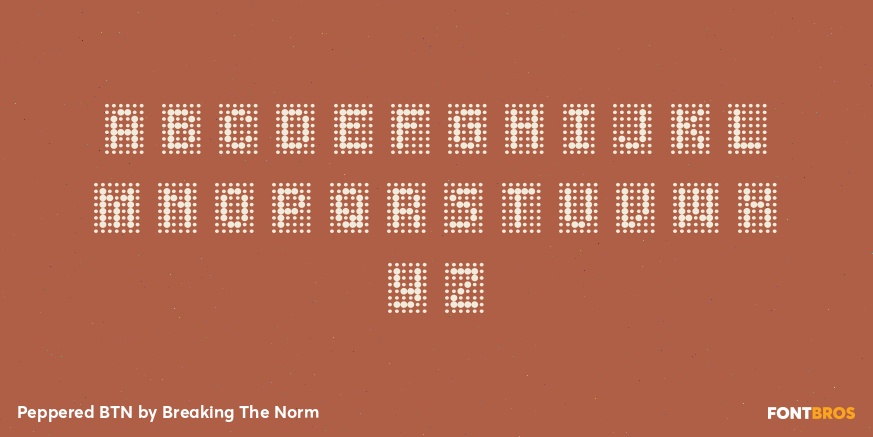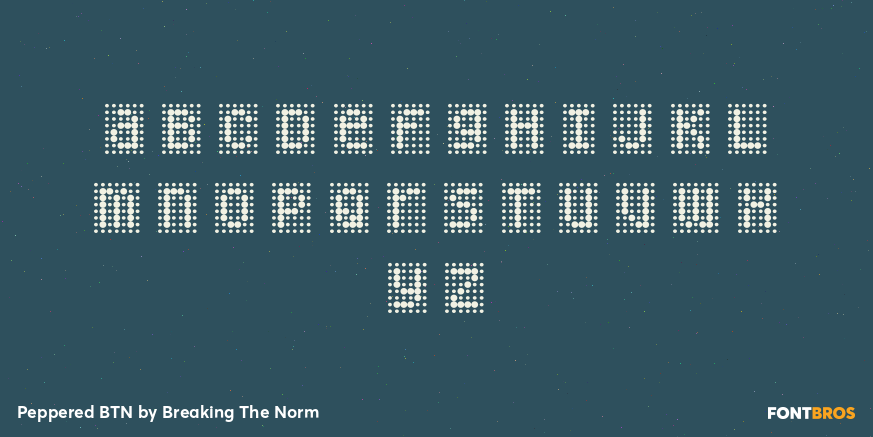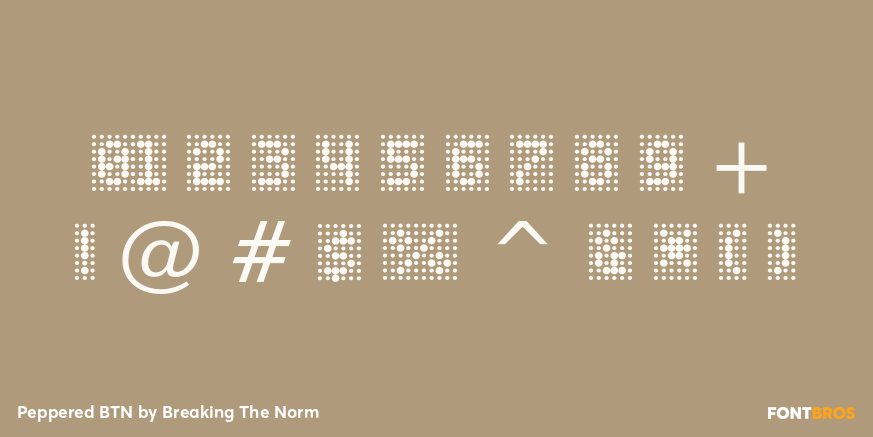
Peppered BTN
Peppered BTN is a digital-style display family built from varying dot sizes arranged in a grid-like structure to form its lettershapes. This modular construction gives the typeface a distinctly electronic, pixel-inspired character while still feeling graphic and highly usable for display work. Peppered BTN is well suited for technology-themed graphics, gaming visuals, posters, branding, packaging, screen-inspired design, and experimental editorial use. The family includes Positive and Negative styles for contrast-driven display options, along with a matching Ornaments style for decorative accents and graphic support.
Peppered BTN Positive
Peppered BTN Ornaments
Peppered BTN Negative
Peppered BTN includes 258 glyphs.